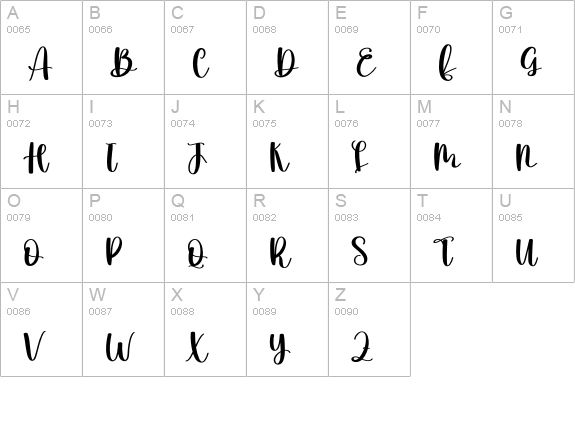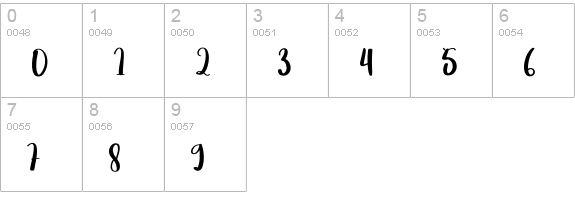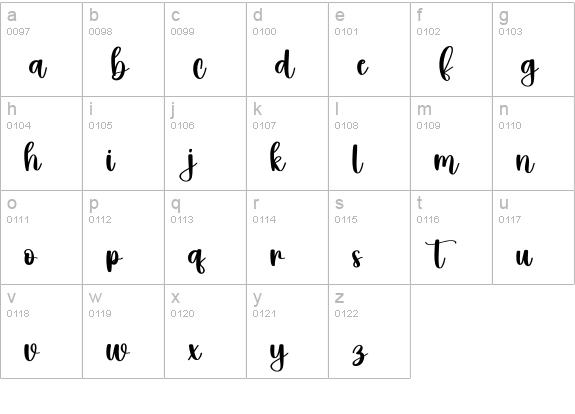
media Font Details
media is a free for personal use font in the Script > Handwritten category, designed by scratchones. It has been downloaded 18 times and is available for Windows, Mac and Linux.
Introducing the stunning Media font, a sleek and modern typeface that will take your design projects to the next level. This versatile font features clean lines and sharp edges, making it perfect for a wide range of applications. Whether you're creating logos, posters, or branding materials, Media font is sure to make a bold statement.